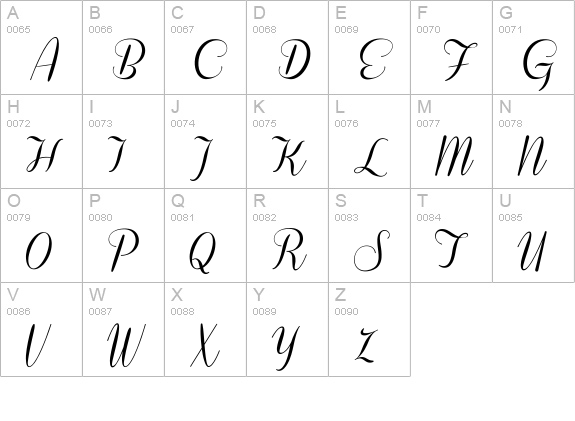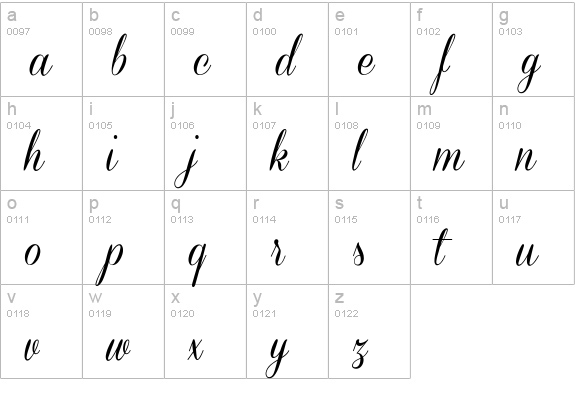
Coneria Script Demo Font Details
Coneria Script Demo is a stunningly elegant and versatile font that will add a touch of sophistication to any design project. With its delicate, flowing lines and graceful curves, this font exudes a sense of timeless beauty. Whether you're creating wedding invitations, branding materials, or simply want to add a touch of elegance to your personal projects, Coneria Script Demo is the perfect choice. What makes Coneria Script Demo even more appealing is the fact that it is completely free to download. Yes, you read that right - this exquisite font is available to you at no cost! FontsMarket.com is proud to offer this font as a free download, allowing you to enhance your creative endeavors without breaking the bank. Coneria Script Demo is not only visually stunning but also incredibly easy to use. Its script style effortlessly adds a touch of sophistication to any project, making it a favorite among designers and enthusiasts alike. Whether you're a professional graphic designer or a hobbyist looking to add a touch of elegance to your creations, this font is sure to impress. With its extensive character set, Coneria Script Demo offers a wide range of possibilities. From swashes and ligatures to alternative characters, this font allows you to customize your designs with ease. Its versatility ensures that you can achieve the perfect look and feel for your project, no matter the style or theme. So why wait? Head over to FontsMarket.com and download Coneria Script Demo for free today. Unleash your creativity and elevate your designs with this exquisite font. Whether you're creating wedding stationery, logo designs, or anything in between, this font will undoubtedly leave a lasting impression. Don't miss out on the opportunity to add a touch of timeless beauty to your projects - get Coneria Script Demo now!